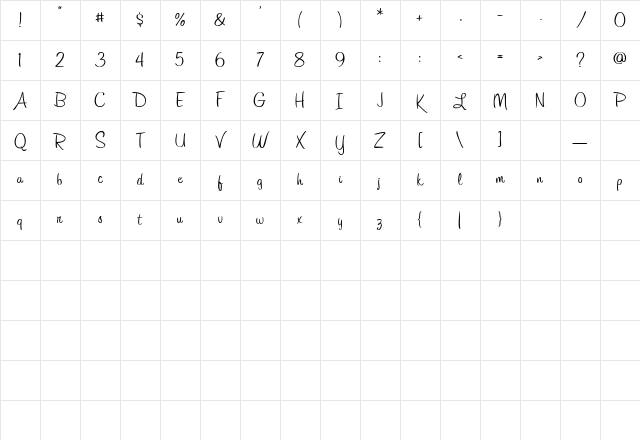
Complete AL Hurried Note Regular glyph index. Displaying only characters natively supported by AL Hurried Note Regular font.
AL Hurried Note is a composed and adaptable typeface that performs quietly and consistently across a wide range of design contexts.